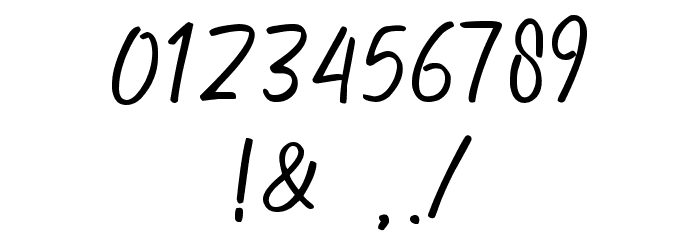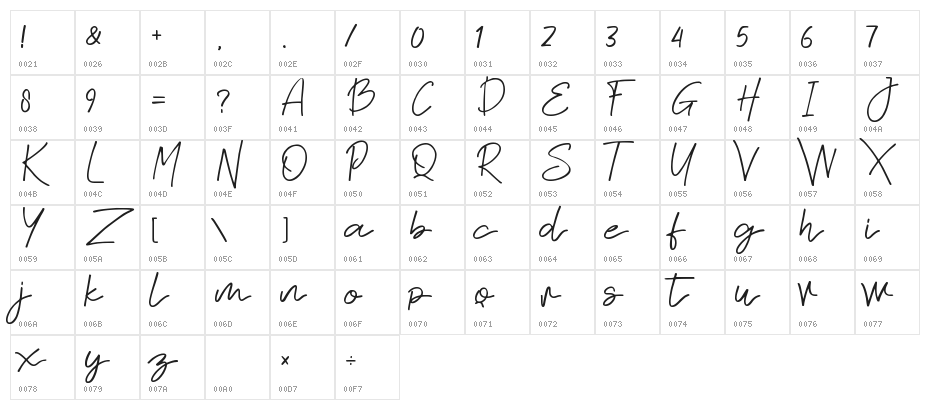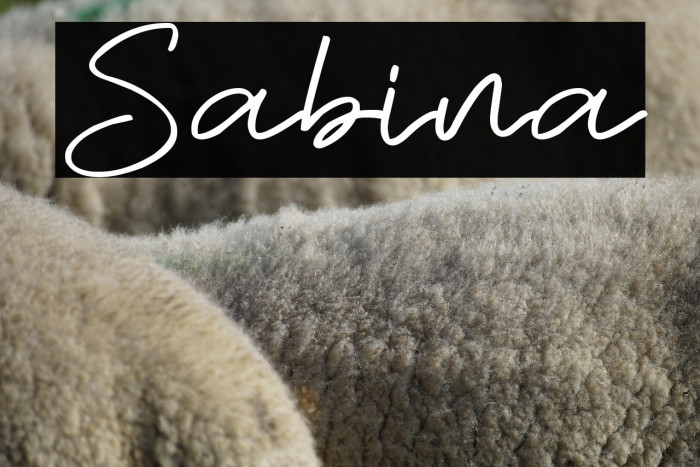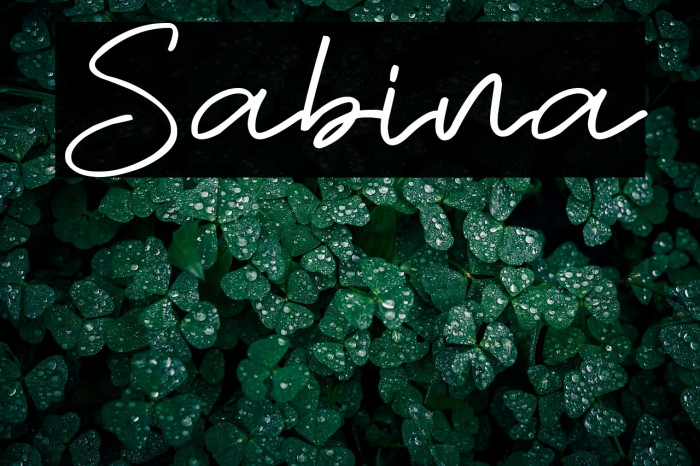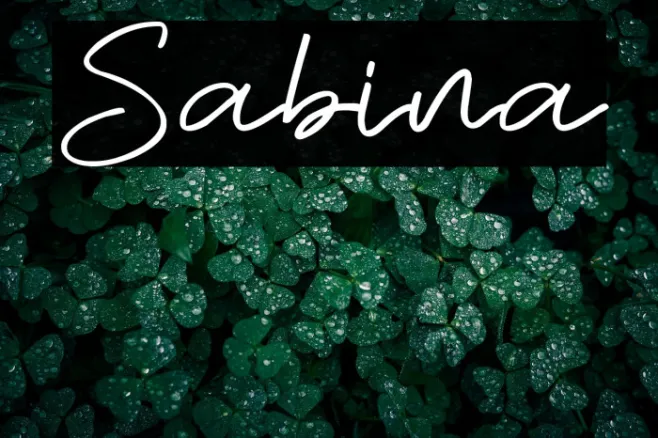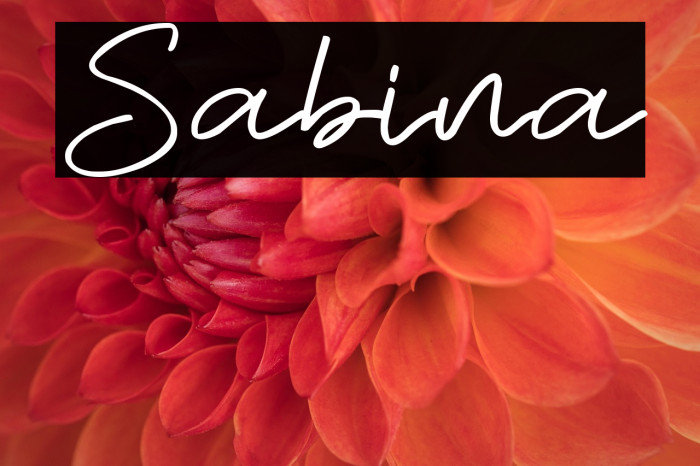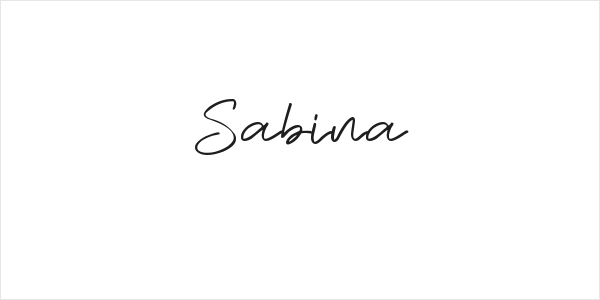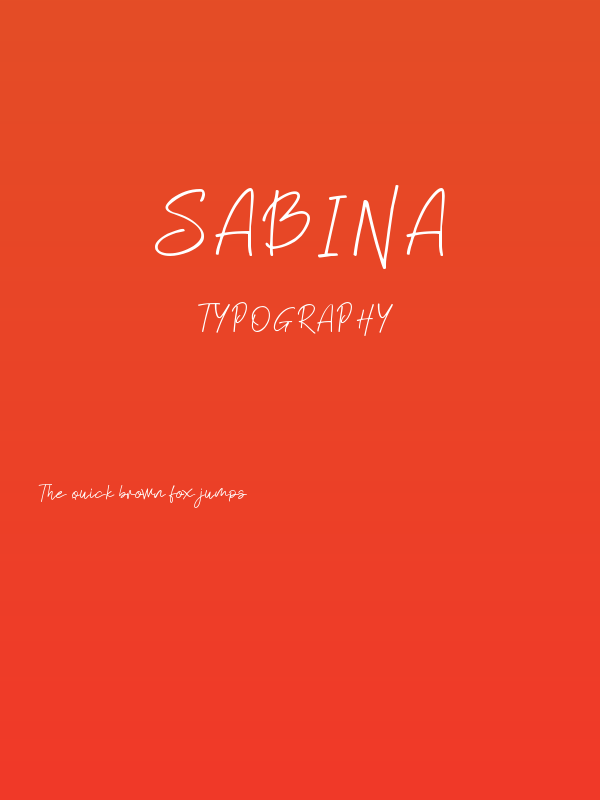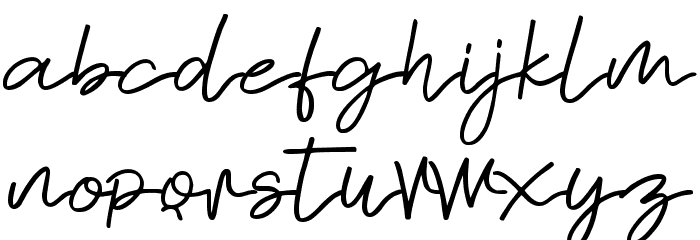
Sabina Font
Sabina Description
This font features a handwritten style with a casual and flowing appearance. The uppercase letters are tall and slightly slanted, giving a sense of movement and dynamism. The lowercase letters are more connected, resembling cursive handwriting, which adds a personal touch. The numerals are consistent with the overall style, maintaining the same fluidity and informal character. Special characters are integrated seamlessly, ensuring versatility in various design contexts. The strokes are consistent in width, providing a balanced and harmonious look.